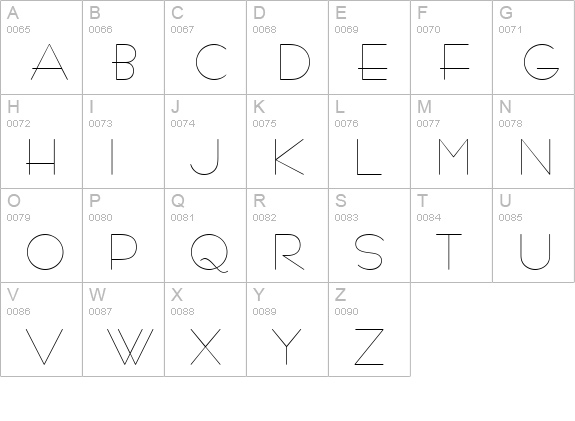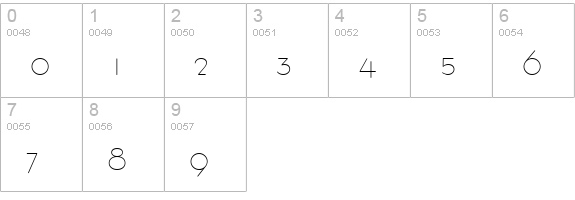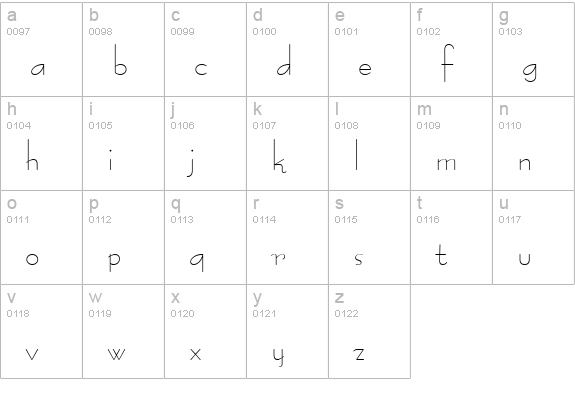
Bernie Normal is the standard, neutral variant in the Bernie typeface family \xE2\x80\x94 well suited to general body text, paragraphs, and standard typographic work.
Bernie Normal font is a versatile and elegant typeface that exudes a sense of classic sophistication. With its clean lines and balanced proportions, Bernie Normal is perfect for a wide range of design projects, from branding to editorial work. This timeless font is free to download at FontsMarket.com, where you can easily access it and add a touch of timeless elegance to your creations. With Bernie Normal, you can effortlessly elevate your designs and make a lasting impression on your audience.